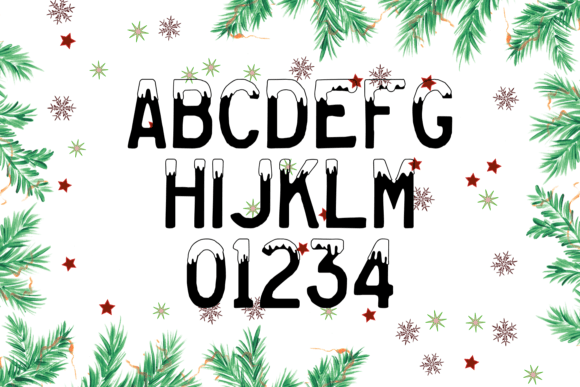
Snowy Christmas Font
Presenting the captivating “Snowy Christmas” font, a delightful typographic creation destined to infuse your festive designs with the essence of a winter wonderland. Each character is intricately crafted to mirror the delicate beauty of falling snow, lending a touch of enchantment to your holiday projects. This font embodies the spirit of the season, evoking the joy and warmth of a cozy Christmas morning, while elegantly capturing the graceful dance of snowflakes in the brisk winter air. Whether for holiday cards, seasonal invitations, or decorative banners, the “Snowy Christmas” font promises to adorn your designs with a magical charm that captures the heart of this joyous time of year, ensuring your creations glisten with the timeless magic of Christmas.